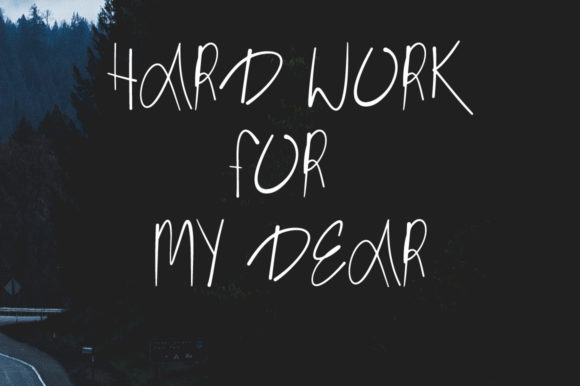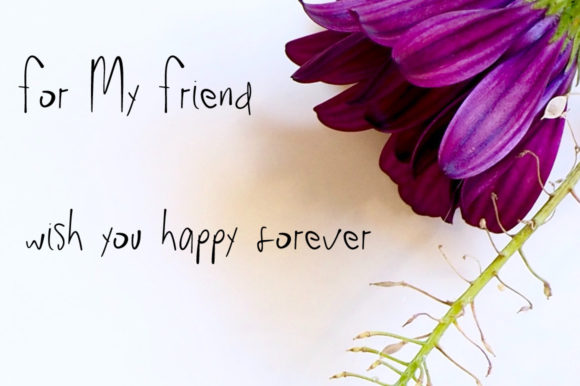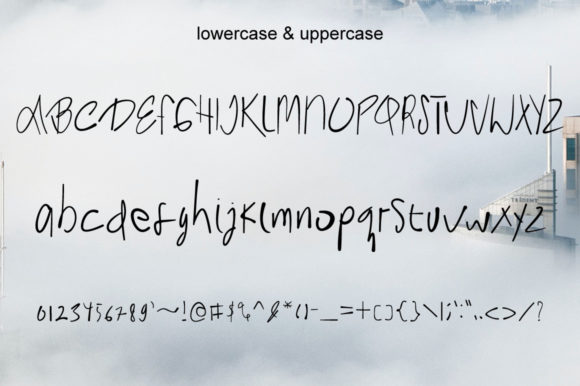
Wedding Font
About Wedding Font
Wedding is a relaxed and smooth handwritten font. It will add a fun and romantic touch to each of your projects. This font is perfect for t-shirts, car decorations, award certificates, cup labels, and more.